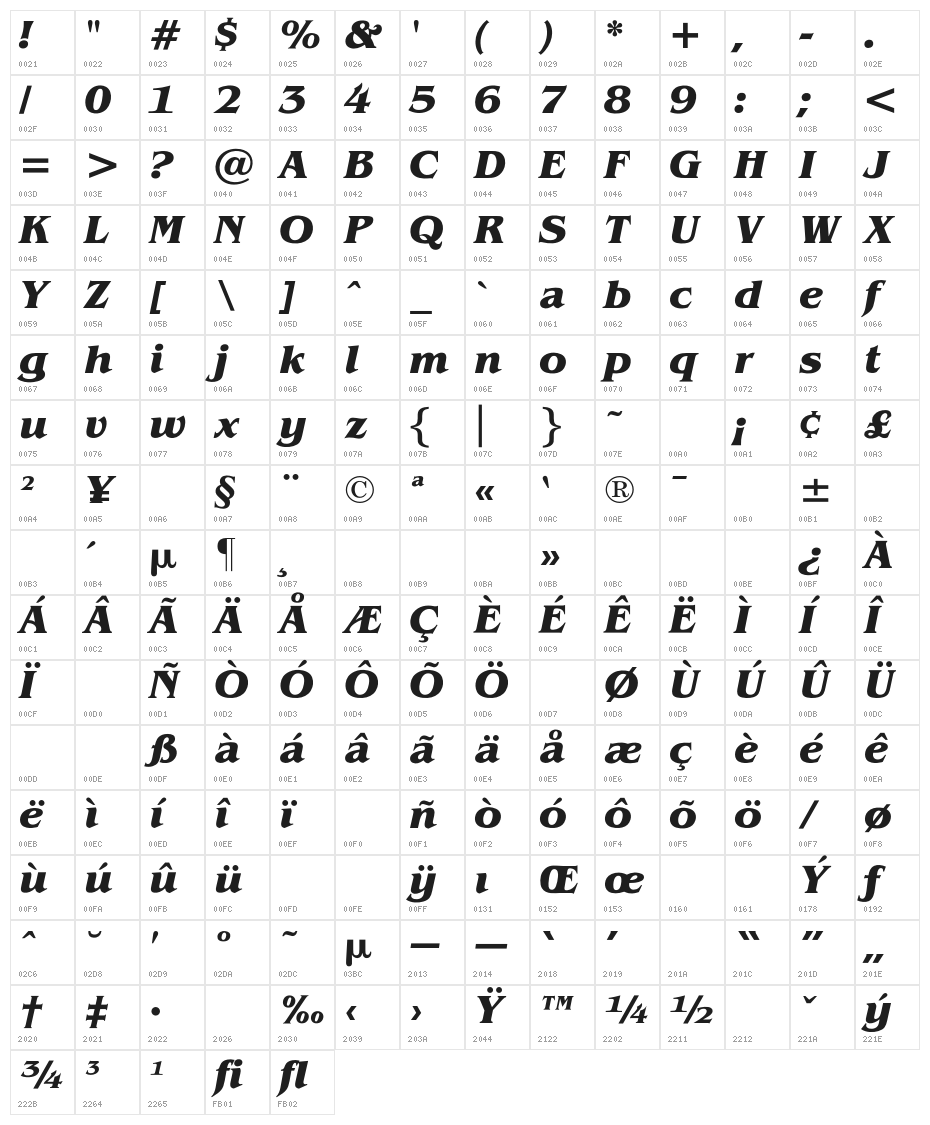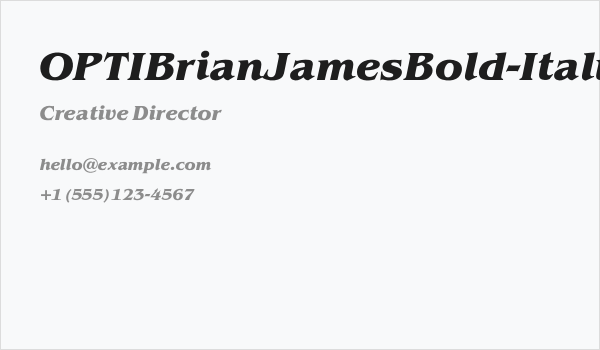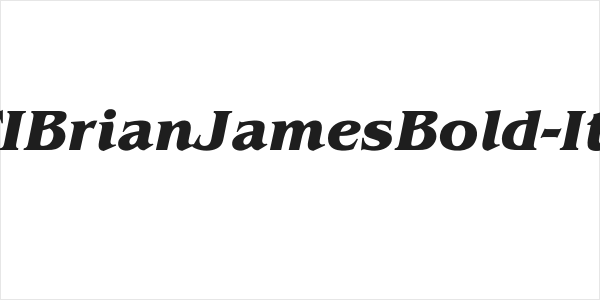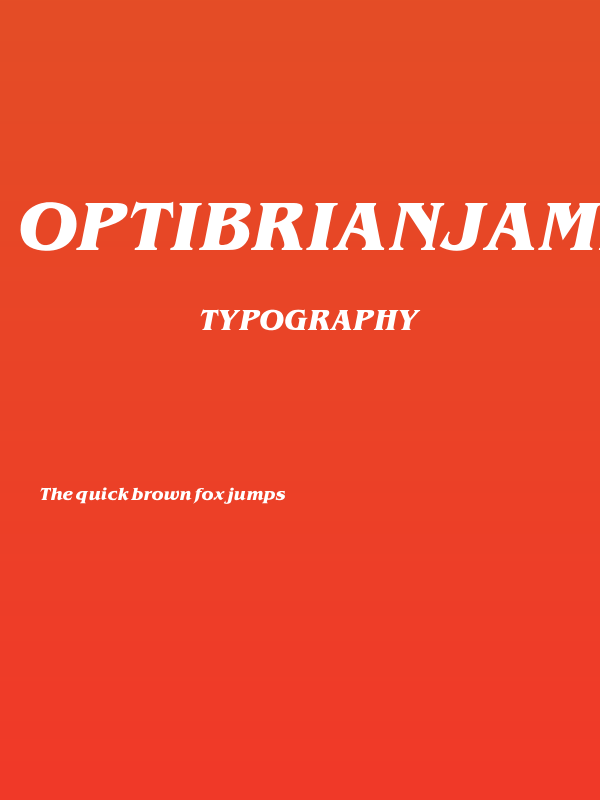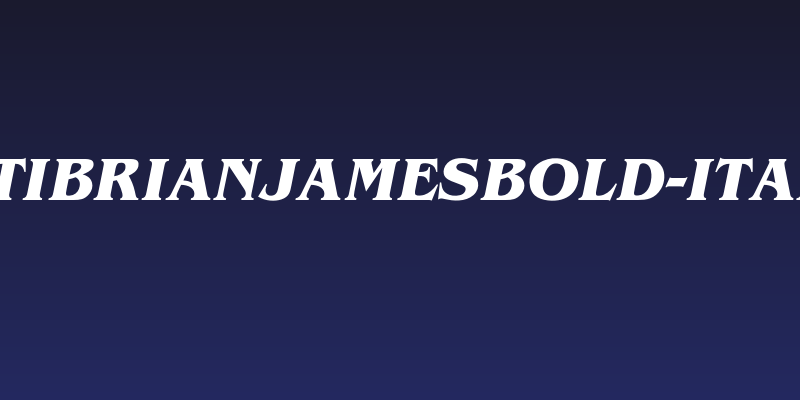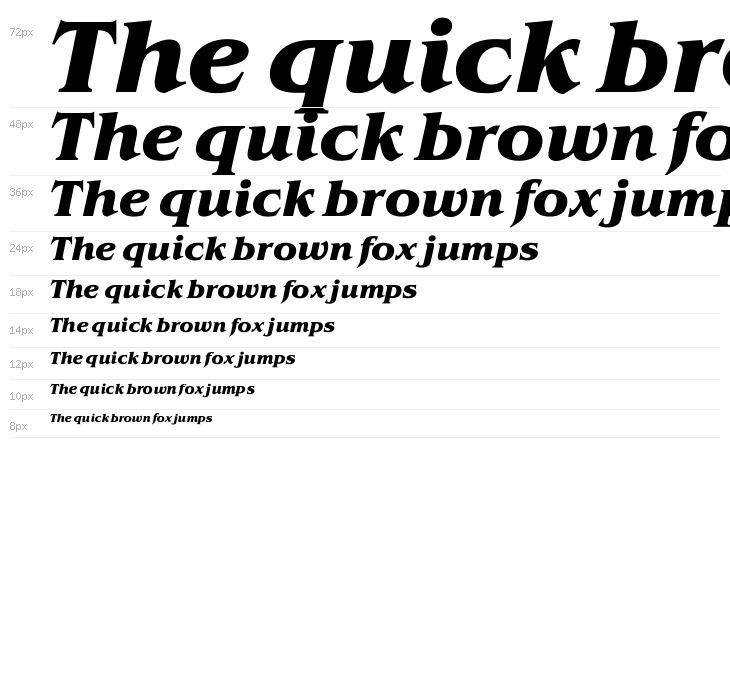
OPTIBrianJamesBold-Italic Font
OPTIBrianJamesBold-Italic Description
This font features a bold and italic style, combining a strong presence with a dynamic slant. The uppercase letters are robust and commanding, while the lowercase letters maintain a consistent flow, enhancing readability. The numerals are clear and well-defined, matching the overall boldness of the typeface. Special characters are crafted with precision, adding versatility to the font's application. The strokes are thick, providing a high contrast that emphasizes each character's form. This font is ideal for making a statement, whether in headlines or logos, due to its impactful and stylish appearance.
Proposed ProjectsIdeal for branding, advertising, headlines, and logo design where a strong and stylish impression is needed.